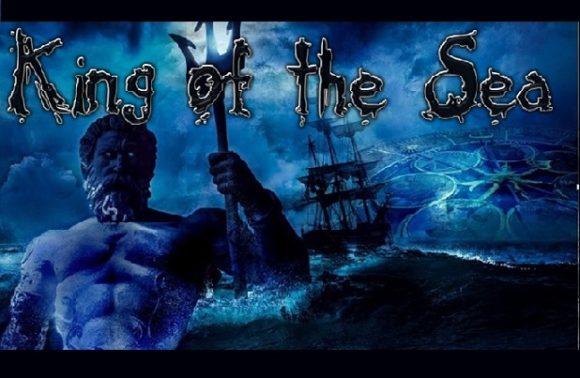
Cold Ocean Font: Unleash the Mysterious and Old World Vibe in Your Designs
Are you tired of using the same old fonts in your designs? Do you want to add a touch of mystery and old-world charm to your projects? Look no further than the Cold Ocean Font! This bold handwritten font is perfect for designers and crafters who want to add a unique spin to their design ideas.
What is Cold Ocean Font?
Cold Ocean Font is a bold handwritten font that exudes a sense of mystery and old-world charm. With its unique and quirky lettering style, this font is sure to make your designs stand out from the crowd. Whether you’re working on a branding project, a craft project, or just want to add some personality to your digital designs, Cold Ocean Font is the perfect choice.
Key Features of Cold Ocean Font
- Bold and Handwritten Style: Cold Ocean Font has a bold and handwritten style that adds a touch of personality to any design.
- Mysterious and Old World Vibe: This font has a mysterious and old-world vibe that will transport your designs back in time.
- Unique Lettering Style: The unique lettering style of Cold Ocean Font makes it perfect for designers who want to add a touch of whimsy to their designs.
- Easy to Read: Despite its bold and quirky style, Cold Ocean Font is easy to read and works well in a variety of design applications.
Uses of Cold Ocean Font
Cold Ocean Font is a versatile font that can be used in a variety of design applications, including:
- Branding and Logo Design: Use Cold Ocean Font to create a unique and memorable brand identity.
- Crafting and Scrapbooking: Add a touch of personality to your craft projects and scrapbooking designs with Cold Ocean Font.
- Digital Design: Use Cold Ocean Font to add some whimsy to your digital designs, such as social media graphics and blog posts.
- Print Design: Cold Ocean Font works well in print design applications, such as brochures, flyers, and posters.
Why Choose Cold Ocean Font?
There are many fonts available that have a similar style to Cold Ocean Font, but here are a few reasons why you should choose this font for your designs:
- Unique Style: Cold Ocean Font has a unique style that will set your designs apart from others.
- High-Quality Design: This font is designed with high-quality and legibility in mind, making it perfect for a variety of design applications.
- Easily Customizable: Cold Ocean Font is easily customizable, allowing you to adjust the font to fit your design needs.
Tips for Using Cold Ocean Font
Here are a few tips for using Cold Ocean Font in your designs:
- Pair with a Simple Font: Pair Cold Ocean Font with a simple font to create contrast and make your design stand out.
- Use in Moderation: While Cold Ocean Font is a beautiful font, it can be overwhelming if used too much. Use it in moderation to create a balanced design.
- Experiment with Colors: Cold Ocean Font works well with a variety of colors, so don’t be afraid to experiment and find the perfect color scheme for your design.
Cold Ocean Font is a bold handwritten font with a mysterious and old-world vibe that will add a unique spin to any design idea. With its key features, versatility, and high-quality design, this font is perfect for designers and crafters who want to add some personality to their designs. Whether you’re working on a branding project, a craft project, or just want to add some whimsy to your digital designs, Cold Ocean Font is the perfect choice.